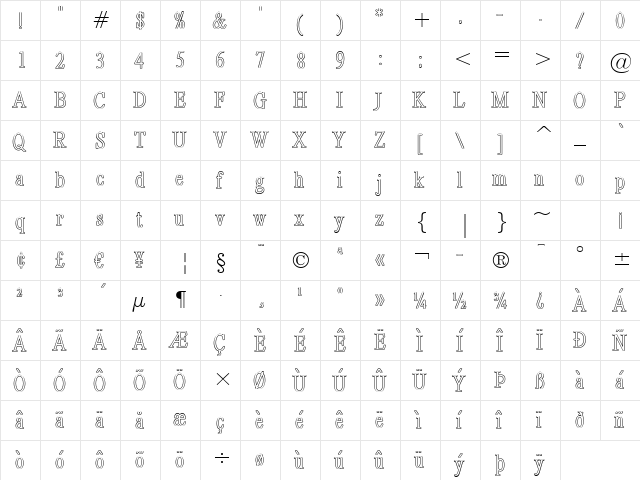
Revelation BTN Cond Out Regular
Design Context for Revelation BTN Cond Out Typeface
Revelation BTN Cond Out takes a measured approach to typography — its balanced proportions and neutral character make it a reliable workhorse for both digital and print work. Its narrow stance lets it pack a punch even in space-constrained designs.
Pro Tip: Use Revelation BTN Cond Out in both headline and body roles to test its range before committing to a single application.